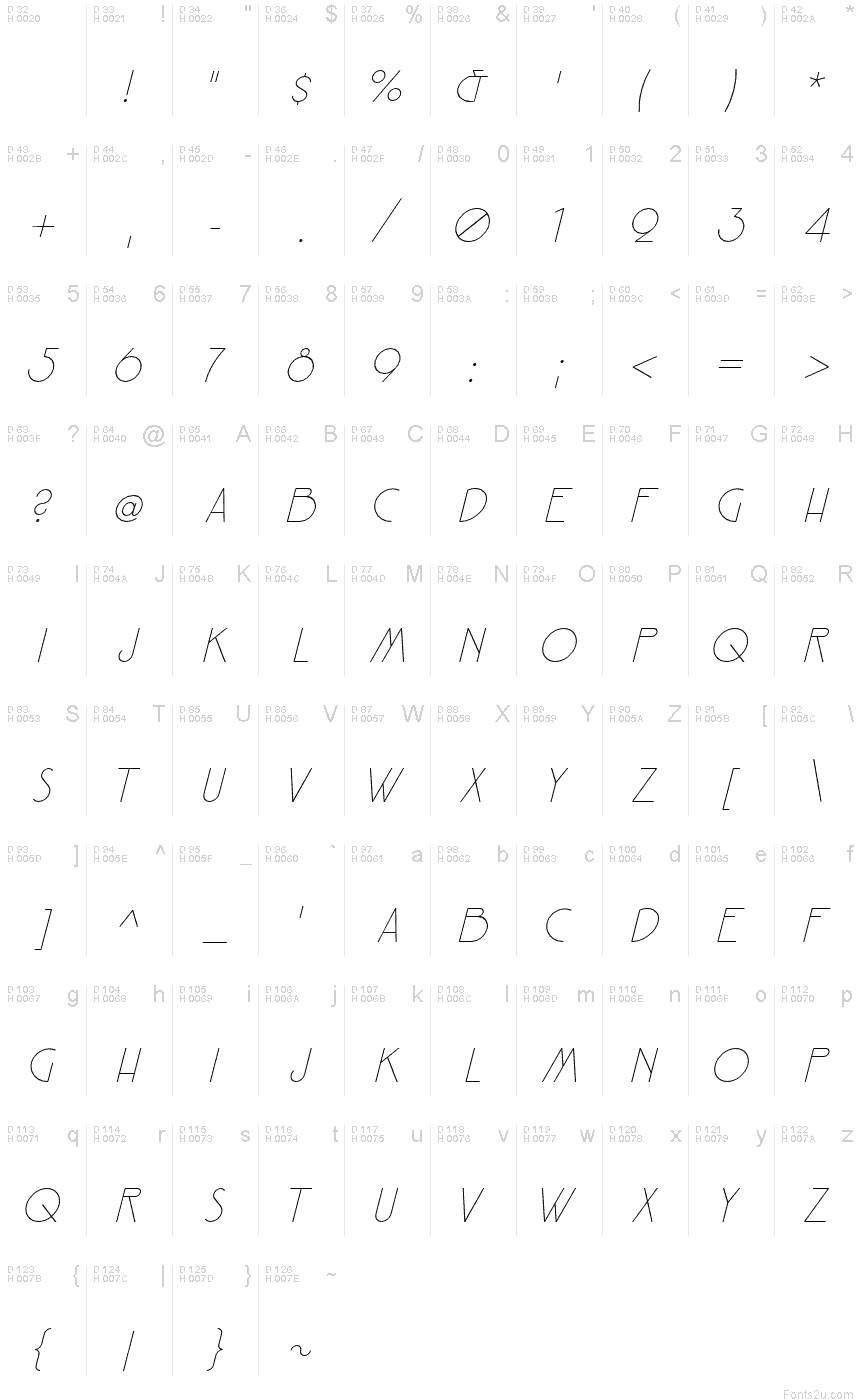
Elega Light Italic by Neal Fletcher is a free light italic sans serif with exceptionally fine strokes and tall, slim proportions. Its sweeping curves and sharply angled joins give the letters a poised, fashion-led character. The construction feels airy and precise.
Fashion branding and event posters are convincing settings for its elegant, attenuated drawing. It also suits fragrance packaging and magazine covers, especially when a refined, understated voice is wanted. The long diagonals can echo linear photography, architectural outlines, or fine-rule illustration.